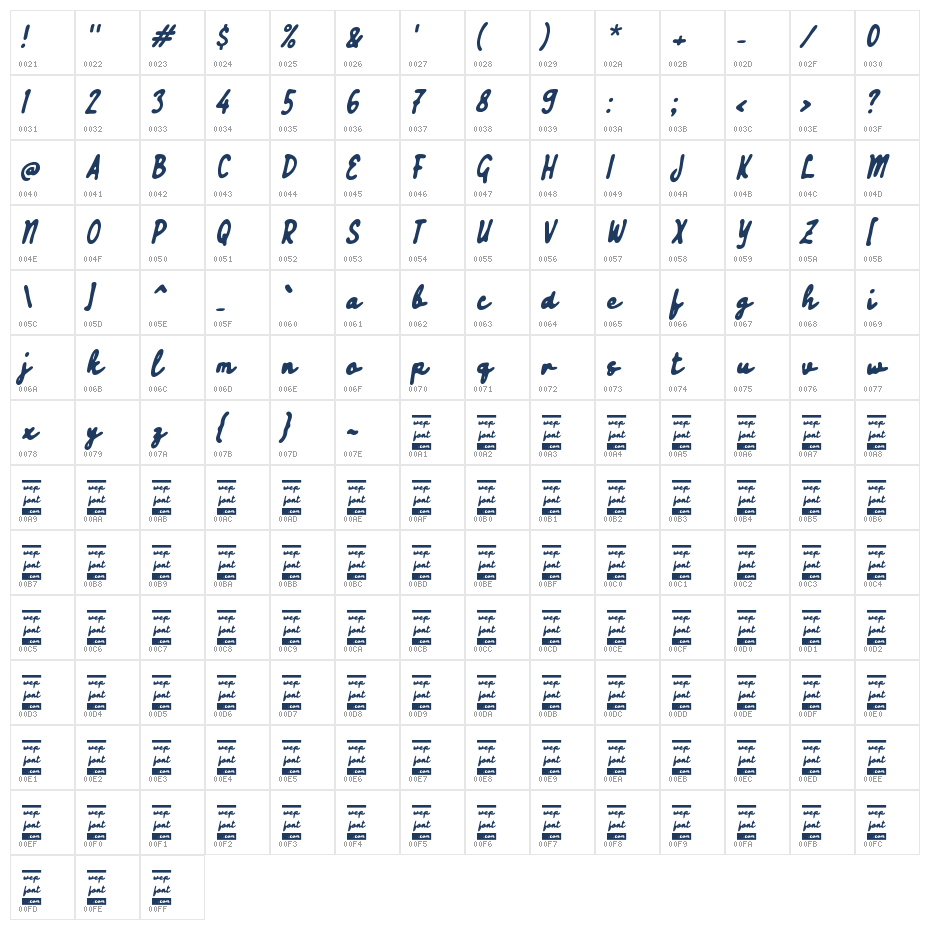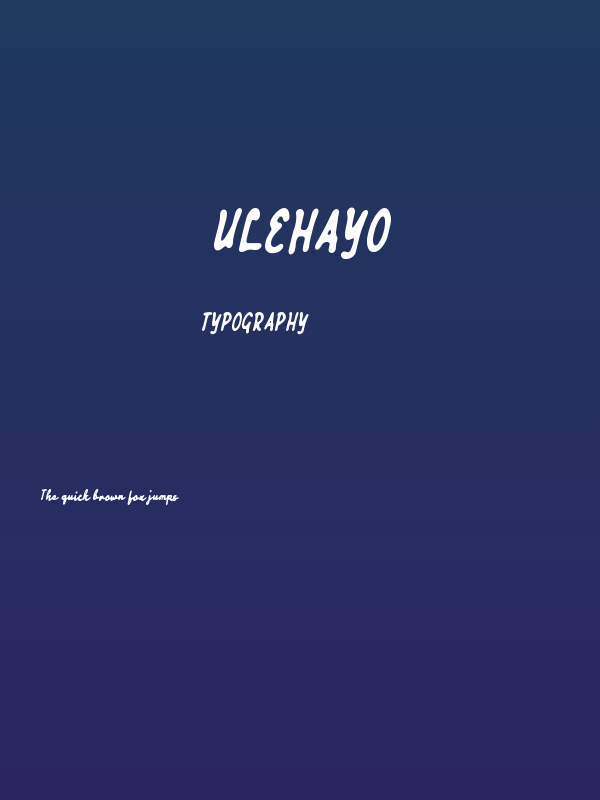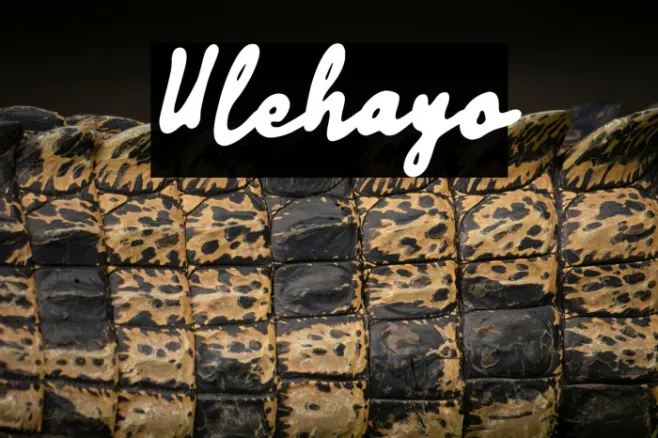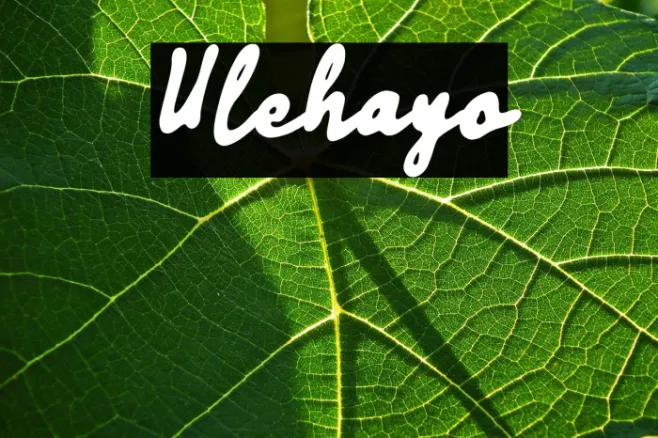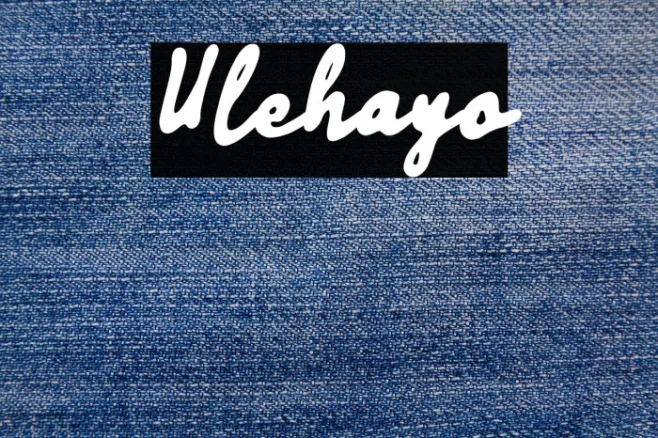
Ulehayo Font
Ulehayo Description
A bold, brush script style font with a casual, handwritten appearance, featuring smooth curves and a slightly playful character.
| Overall Style | Casual, Friendly, Handwritten |
| Use Case | Headlines, Logos, Invitations, Creative branding |